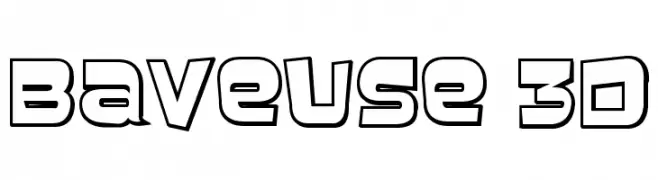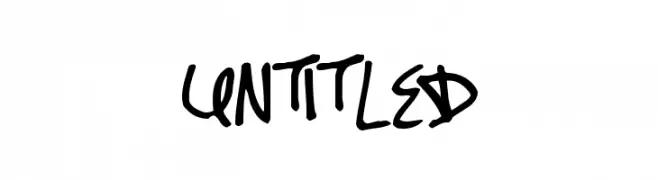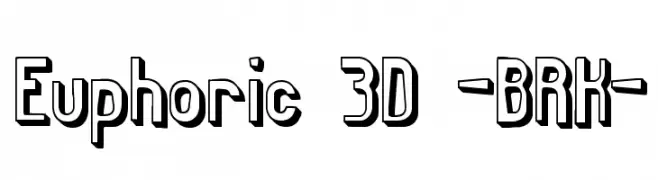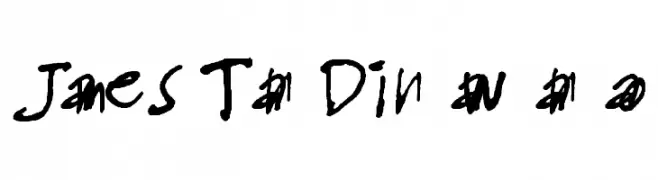
A bold, handwritten font with a playful and energetic style.
A bold, outlined font with a vintage, decorative style.
A bold, jagged, and dynamic font with a chaotic, artistic style.
A bold, 3D geometric font with a striking shadow effect.